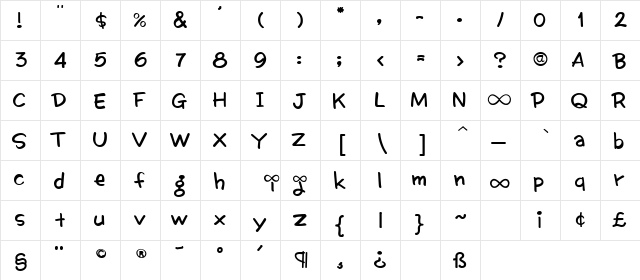
HIGH FONT II B YOUBYC_FONTunik Regular
Design Context for HIGH FONT II B YOUBYC_FONTunik Typeface
HIGH FONT II B YOUBYC_FONTunik is a composed and adaptable typeface that performs quietly and consistently across a wide range of design contexts.